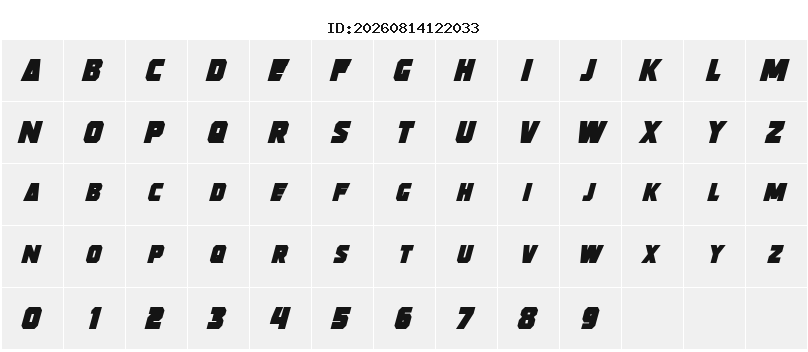
Strongarm Preview
• Font Name: Strongarm
• Designer: Neale Davidson
About Strongarm.otf
Strongarm.otf is a modern, elegant sans-serif font designed for ultimate readability and visual harmony. Perfect for branding, headlines, web design, and print materials.